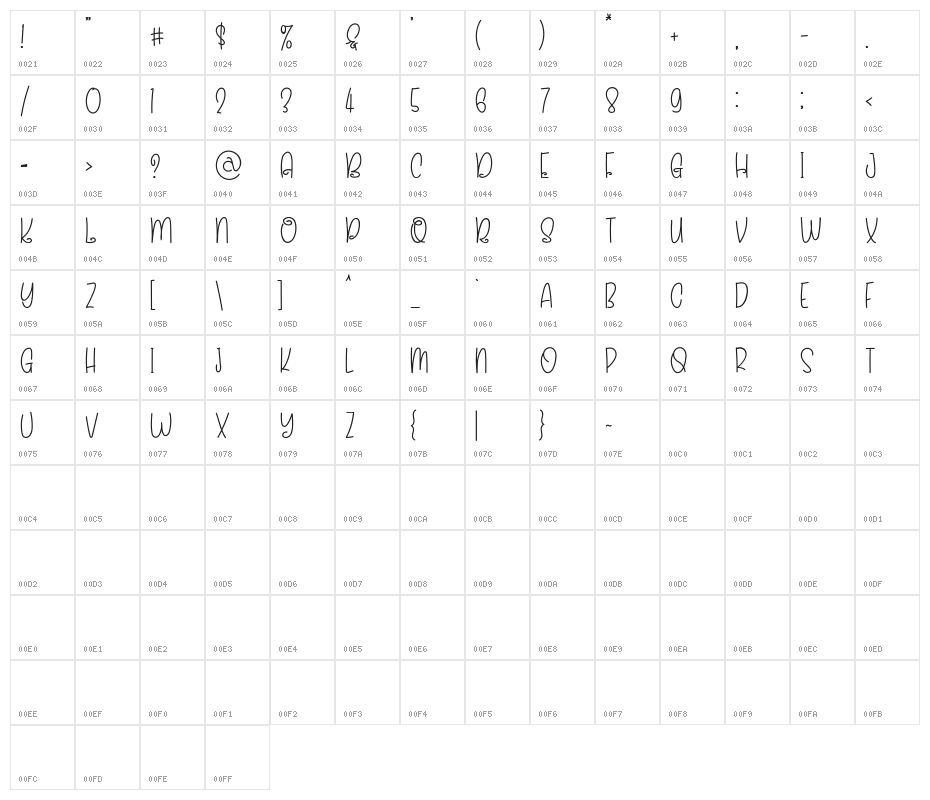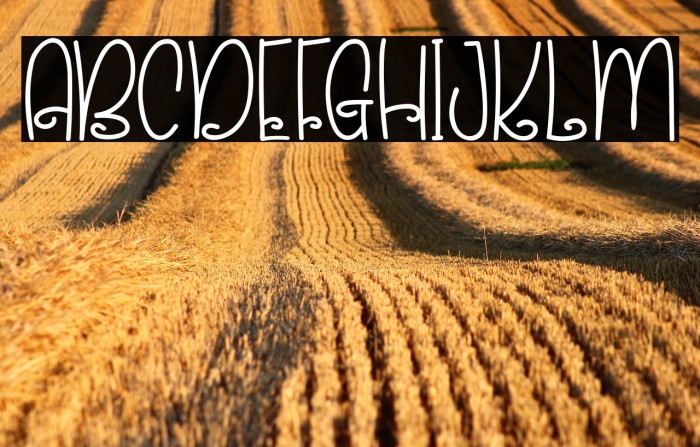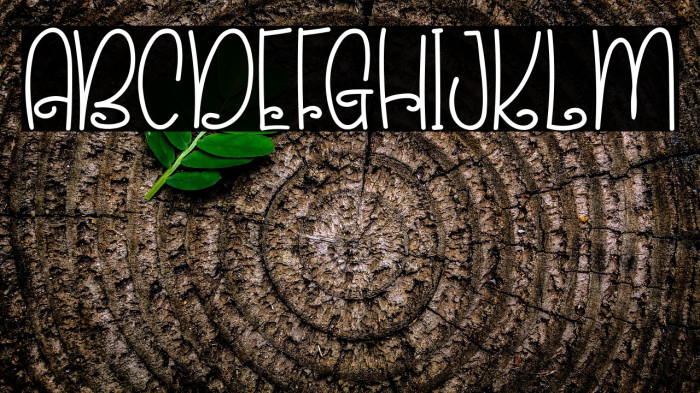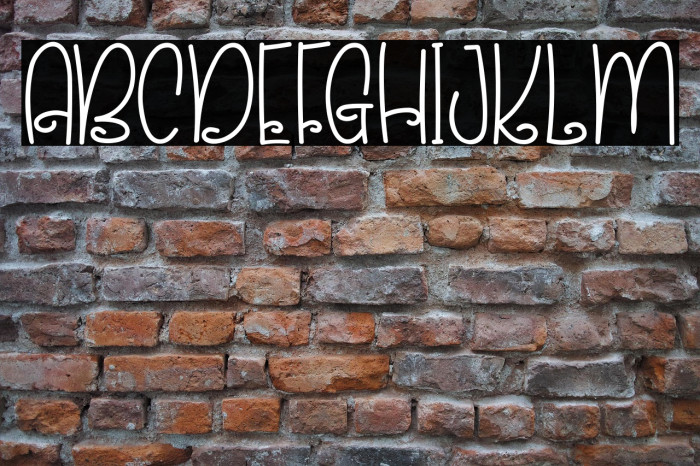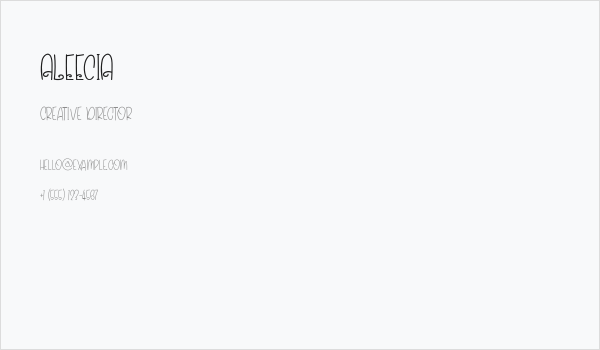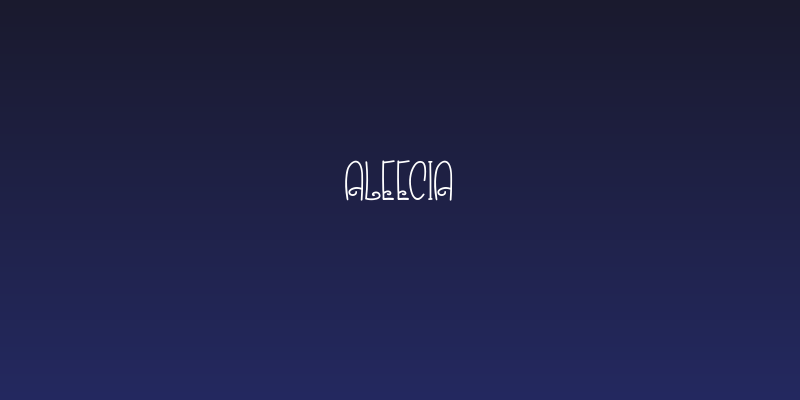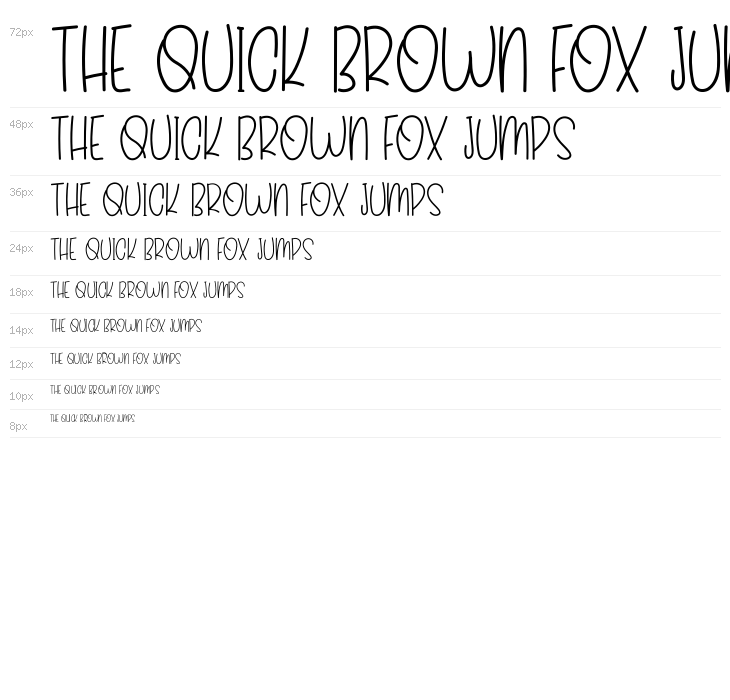
ALEECIA Font
ALEECIA Description
This playful and whimsical font features a unique blend of curves and straight lines, giving it a distinctive and lively appearance. The uppercase letters are adorned with subtle swirls and loops, adding a touch of elegance and creativity. The lowercase letters maintain a consistent style, with a slightly more straightforward design that complements the uppercase characters. The numerals are clear and easy to read, while the special characters retain the font's overall playful aesthetic. This font is perfect for projects that require a fun and engaging look, such as children's books, greeting cards, or playful branding.
| Overall Style | Playful |
| Proposed Projects | Ideal for children's books, greeting cards, and playful branding. |